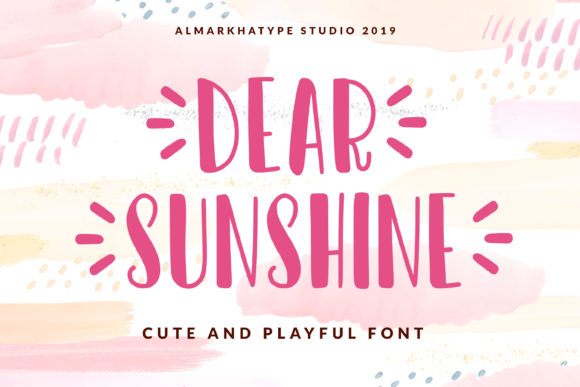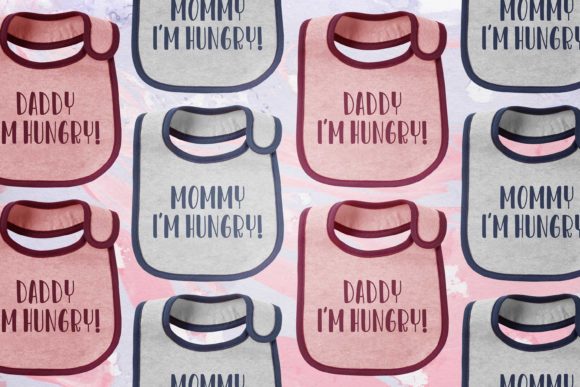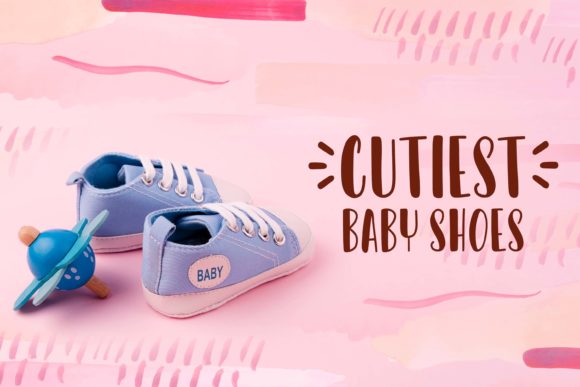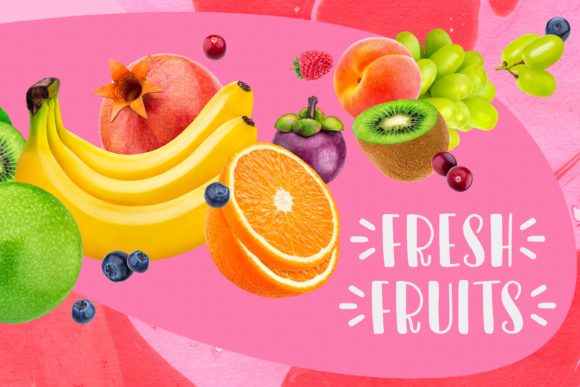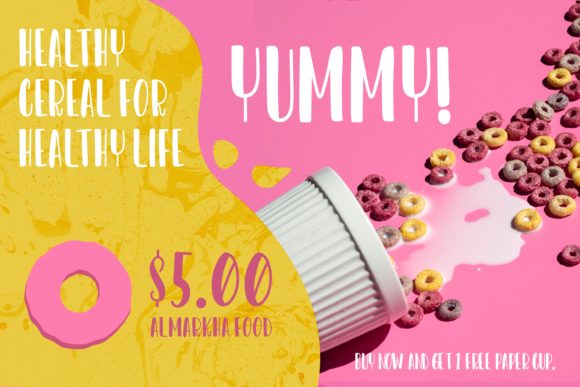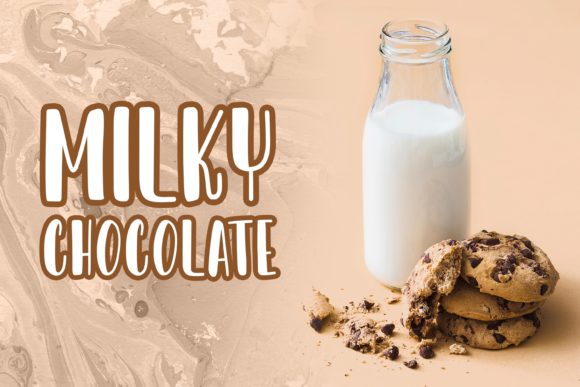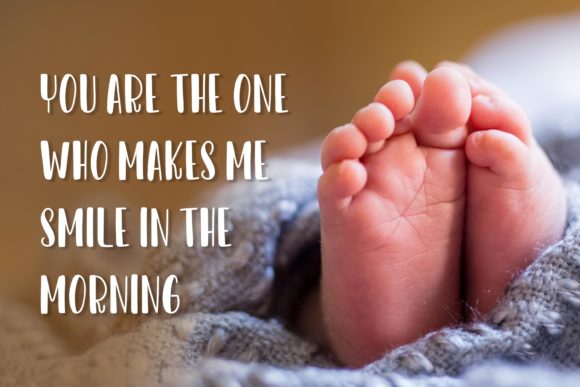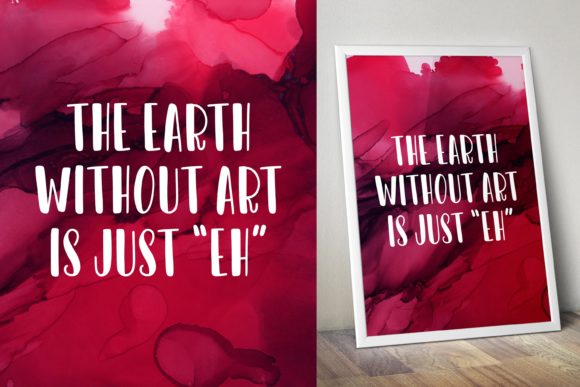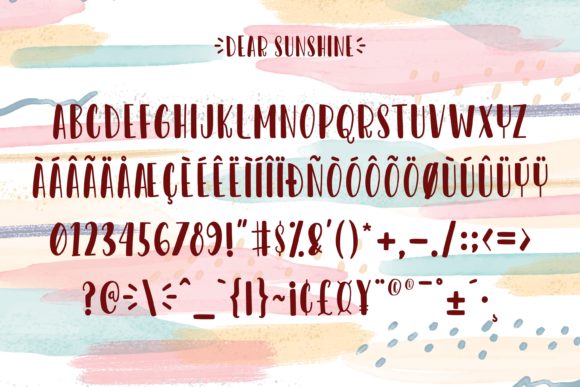
Dear Sunshine Font
About Dear Sunshine Font
Dear Sunshine is sweet and playful, but also elegant. This versatile script font has a wide range of applications ranging from greeting cards to kids’ crafts, and is guaranteed to add a sweet touch to your next design.